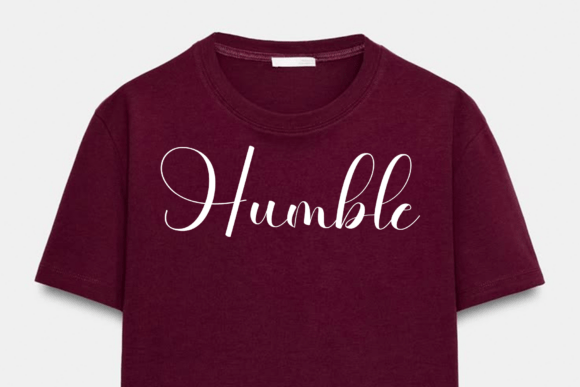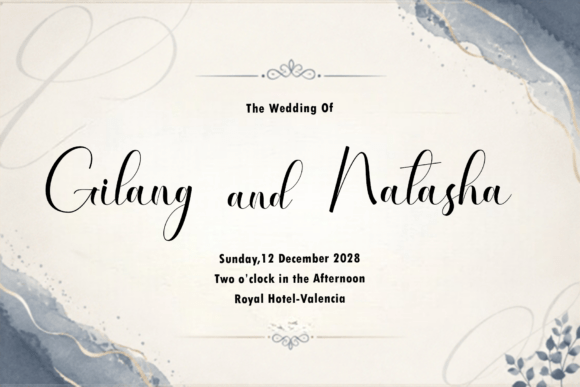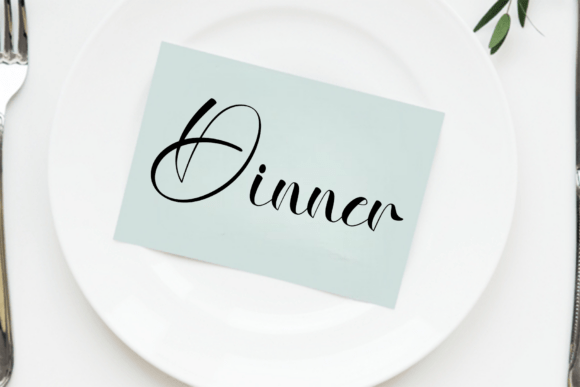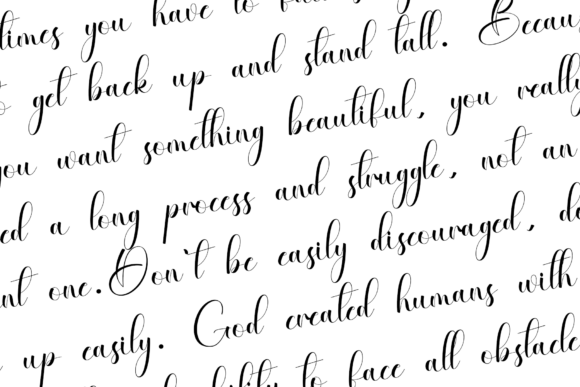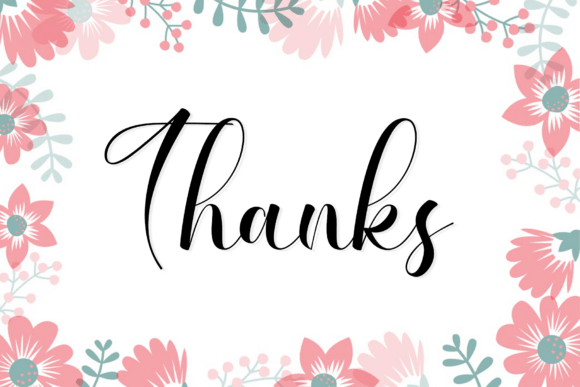
When Words Become Art: The Allure of Bestina Font
Have you ever sat at your desk, pen in hand, and tried to recreate the perfect signature? You know, the one that says, “I’m stylish, I’m confident, and I’m effortlessly cool.” That elusive, flowing script that seems to dance across the page is exactly what the Bestina Font embodies.
Designed to evoke modern elegance, this “new style” handwritten script font is perfect for luxury branding, signature logos, and high-end editorial content. With its delicate balance of tall ascenders and sweeping loops, the Bestina Font creates a sophisticated visual flow that’s impossible to ignore. For designers, it’s a valuable tool that adds an unmistakable touch of class to every word.
Bestina Font Key Features
- Character Set: The font includes a comprehensive character set, supporting multiple languages, including Latin, Cyrillic, and Greek alphabets.
- Unique Characteristics: The font features a unique blend of modern and vintage elements, with intricate details and subtle texture, making it suitable for a wide range of design applications.
- Font Styles: Bestina Font includes multiple font styles, including Regular, Italic, Bold, and Bold Italic, providing flexibility for designers to create a variety of visual effects.
Bestina Font Review
As a designer, I was excited to dive into the Bestina Font and see what it had to offer. Overall, I found it to be a solid choice for a variety of projects.
- Bestina Font has a modern aesthetic that’s perfect for trendy and contemporary designs.
- The font comes in a range of weights and styles, making it versatile for different use cases.
- The font is highly legible, even at small sizes, which is a must-have for any font in my book.
- Bestina Font supports a wide range of languages, making it a great choice for international projects.
- The font may not be the best choice for traditional or classic designs, as it’s a bit too modern for those applications.
- The font’s bold weights can feel a bit too bold at times, which may not be suitable for all designs.
- Some users may find the font’s italics a bit too slanted, which can be distracting in certain contexts.
Overall, I would give Bestina Font 4 out of 5 stars. It’s a solid choice for modern designs, but it may not be the best fit for every project. With a bit of careful consideration, however, it can be a great addition to your design toolkit.
Tips for Getting the Most Out of the Bestina Font
Use the Bestina Font for creative projects that require a unique and elegant touch. Experiment with different font sizes and styles to create visual interest. You can also pair the Bestina Font with other fonts to create a visually appealing combination.
The Bestina Font is ideal for:
- Custom graphics and illustrations
- Editorial and publishing projects